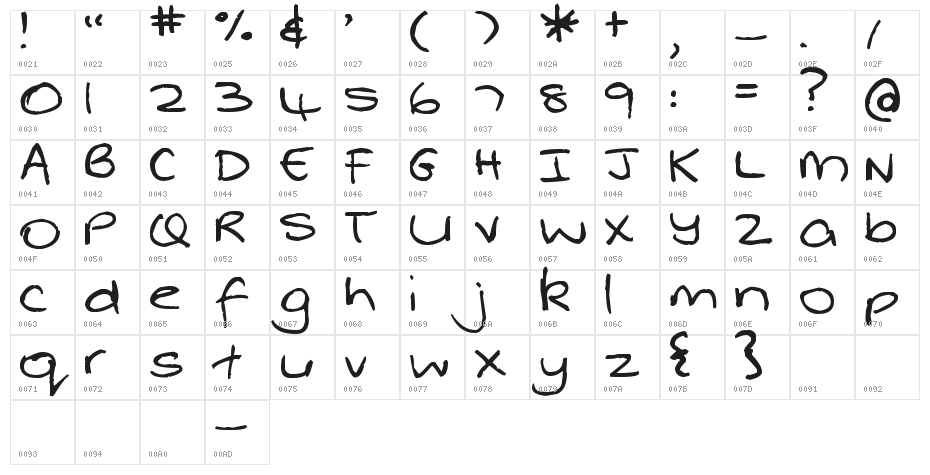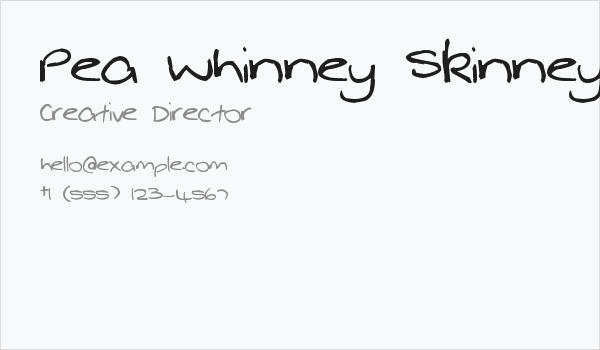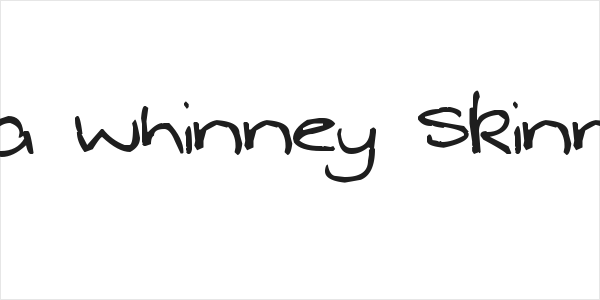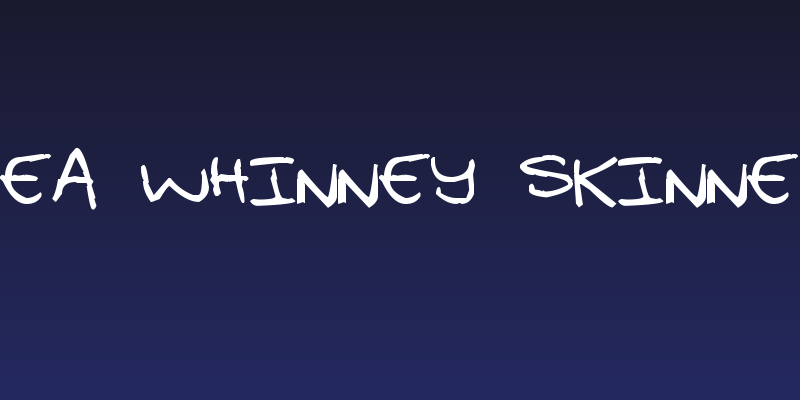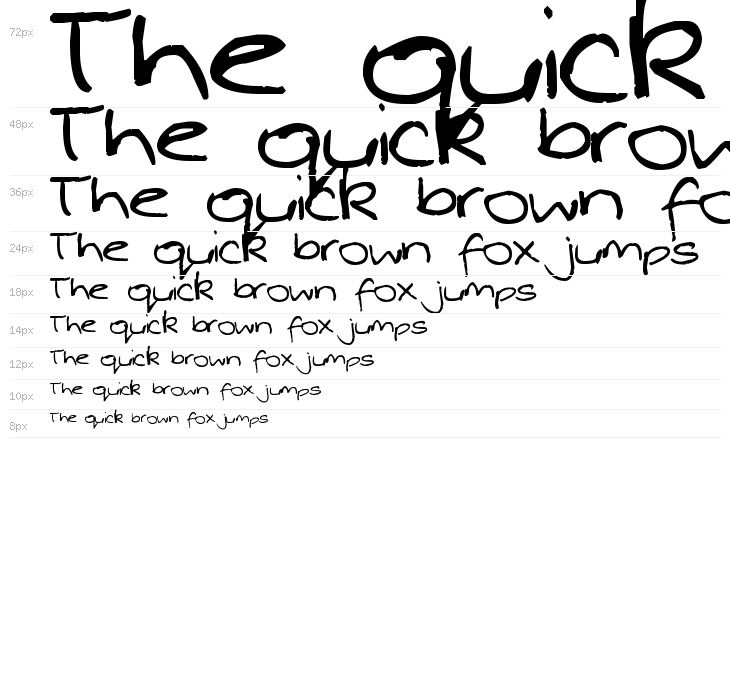
Pea Whinney Skinney Font
Pea Whinney Skinney Description
This playful and whimsical font features a handwritten style that exudes a casual and friendly vibe. The characters are slightly irregular, mimicking the natural flow of handwriting, with varying stroke thickness that adds a dynamic and lively feel. The uppercase and lowercase letters maintain a consistent style, while the numerals and special characters integrate seamlessly, enhancing the font's versatility. Its informal and approachable design makes it ideal for projects that require a personal touch.
| Proposed Projects | Ideal for greeting cards, personal invitations, children's books, and playful branding. |